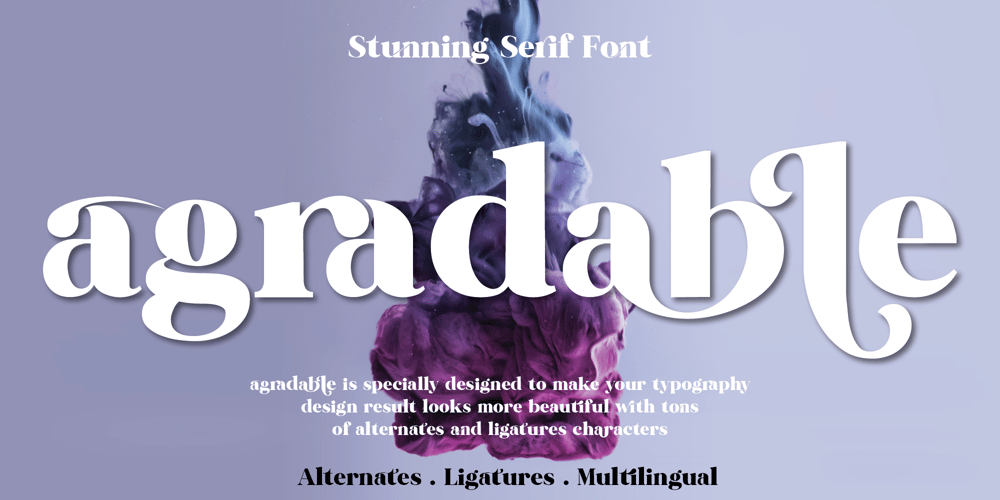
Agradable Font Family was designed by El Mehdi CHOUYOUKH and published by Mchcrafter. Agradable contains 1 styles and family package options. Agradable is a Modern Stylistic Serif typefaceA new serif that we created specially for branding needs, with extra ligatures and alternates in a unique shape just to add value to your brand. It so nice to leverage designer or product owner that need solutions to make their design look more stylish and modern. And specially for Agradable font, We prepared all the ligatures, and the alternates characters to help you create unlimited variations for your creative needs.Agradable includes: All uppercase & lowercase letters All numbers 0-9 & Punctuation Ligatures & Alternates Symbols Multiligual Letters